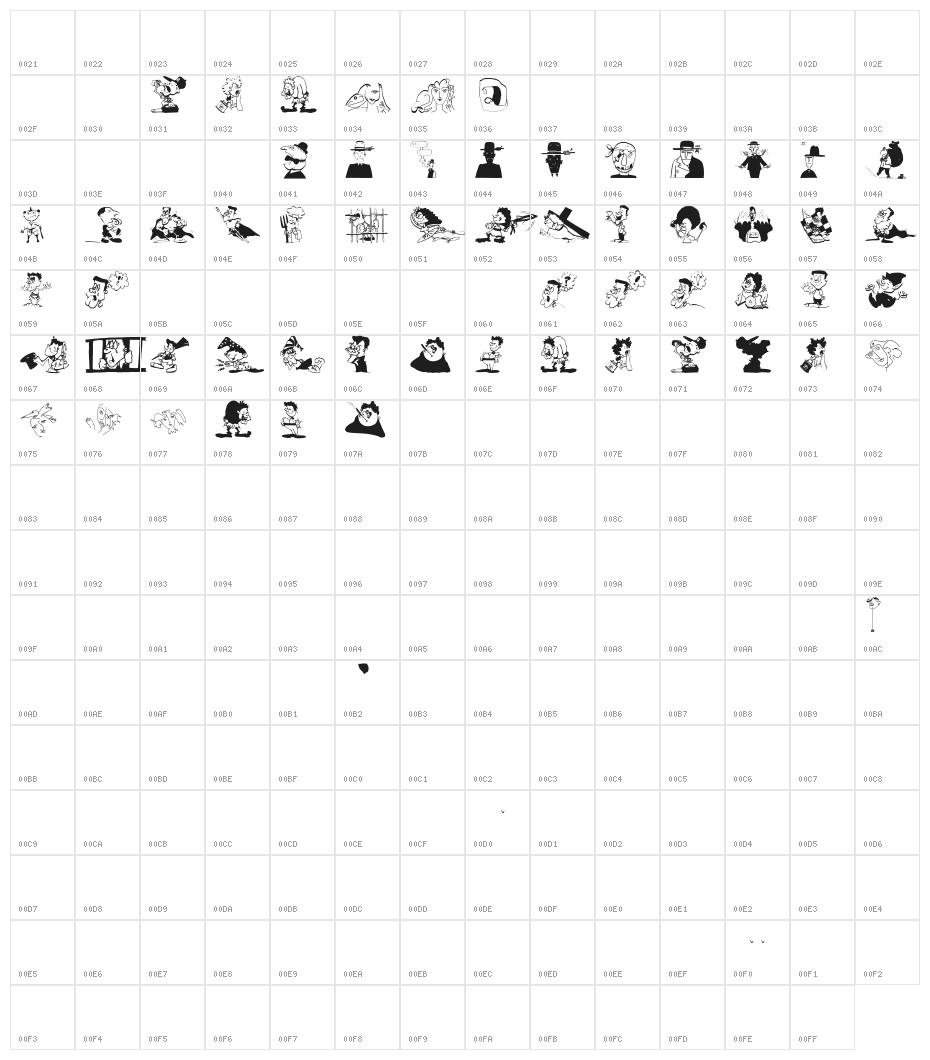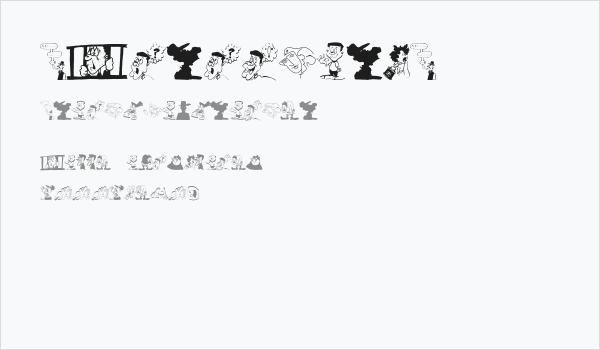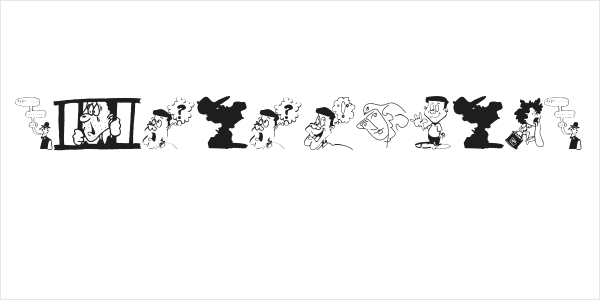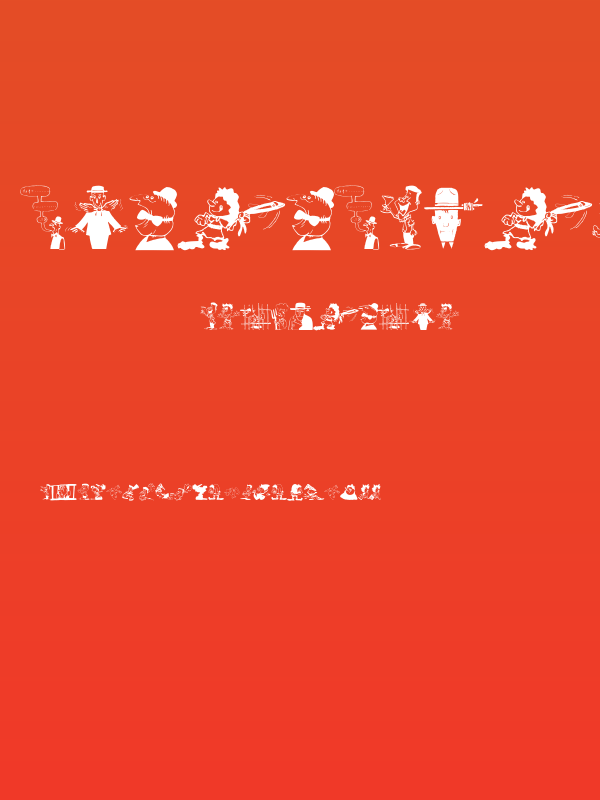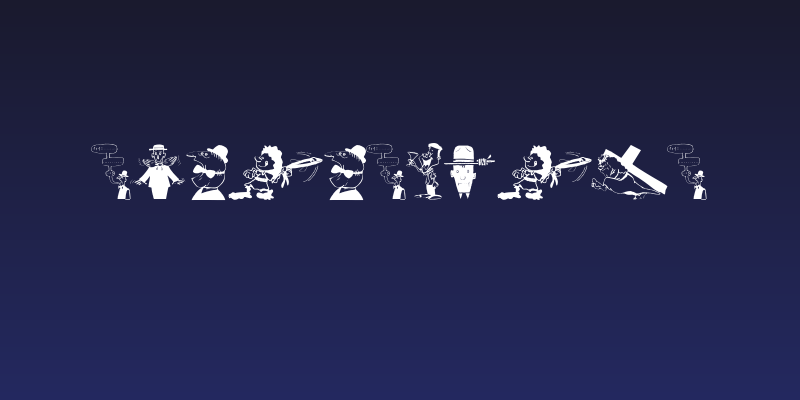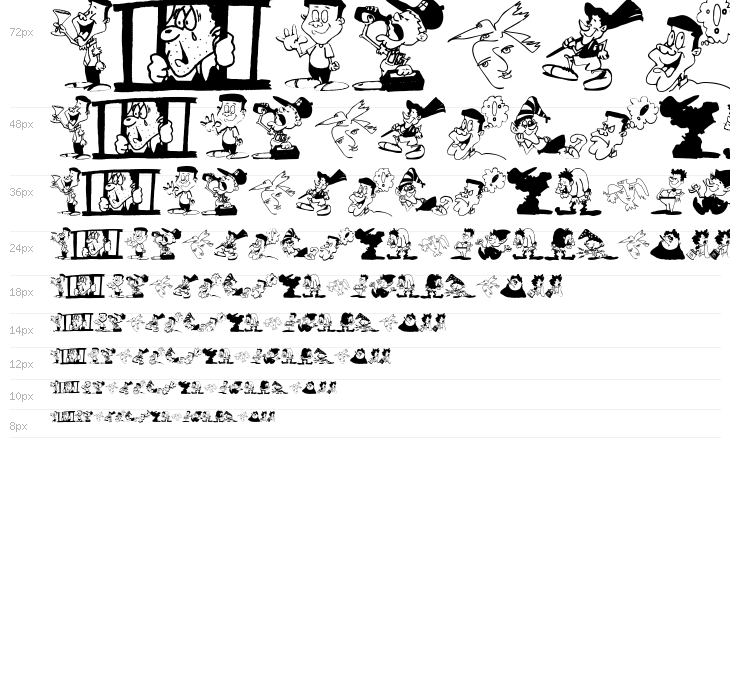
Characters-C Font
Characters-C Description
A highly decorative and whimsical font composed entirely of unique cartoon-style character illustrations, each glyph representing a different humorous or exaggerated figure or scene. The characters are drawn with bold, irregular lines and varying levels of detail, giving the set a playful and artistic feel.
| Overall Style | Whimsical, Playful, Artistic |
| Use Case | Logos, Headlines, Posters, Themed Events |
| Proposed Projects | ChildrenΓ’β¬β’s books, comic strips, playful posters, party invitations, creative branding, educational materials. |